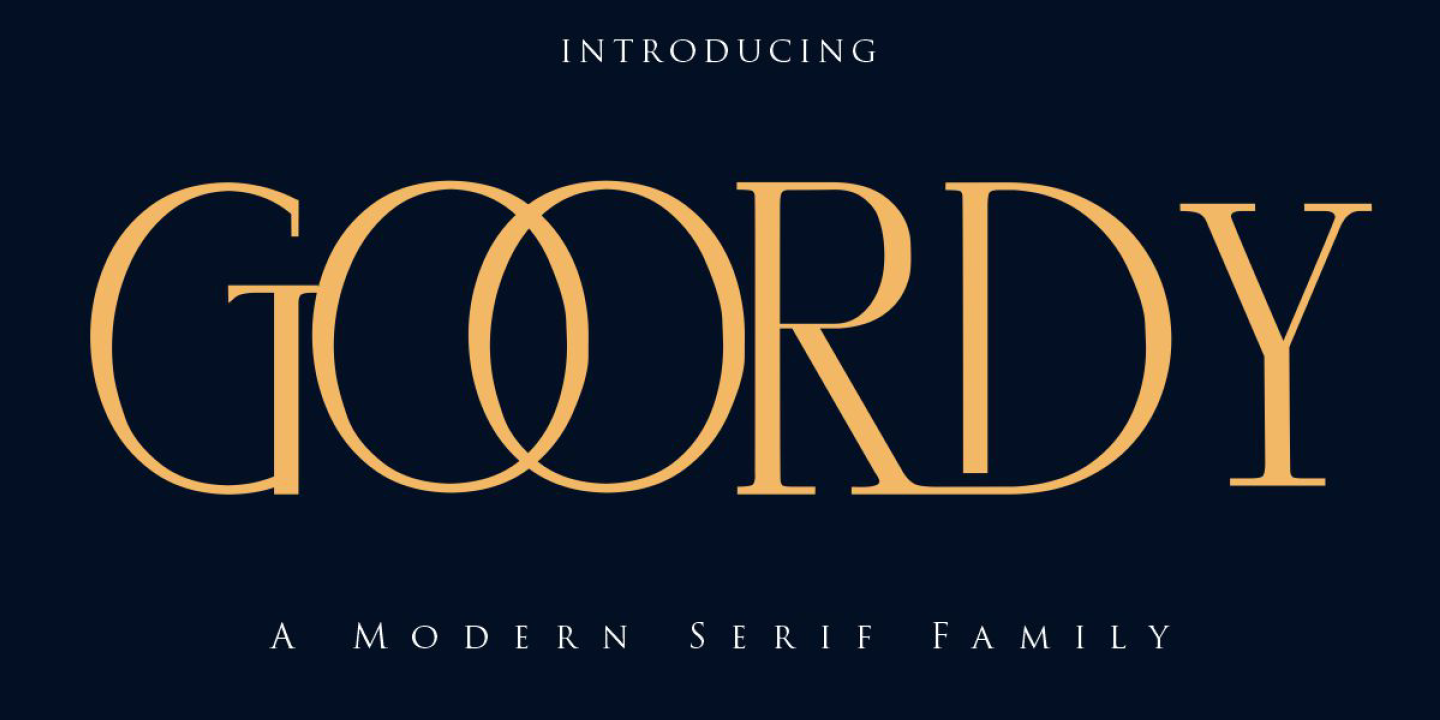
Goordy Font is perfect for playful children's branding, fun educational materials, quirky entertainment venues, whimsical toy packaging, cheerful family restaurants, amusing social media graphics, lighthearted party invitations, creative children's books, jovial gaming interfaces, and delightful family-friendly advertising.
What makes Goordy Font exciting is its quirky charm that perfectly captures the playful spirit and innocent humor found in childhood wonder and family entertainment experiences. This typeface features distinctive letterforms with whimsical proportions and fun-loving details that evoke the spontaneous joy and creative imagination of children at play. The font's playful personality and fun authenticity make it ideal for family entertainment brands seeking to convey joy, creativity, and the delightful humor that comes from genuine childhood happiness and playful family experiences.
Goordy Font family includes playful weight variations and whimsical alternatives that enhance its fun appeal while providing design flexibility for children's and entertainment applications. The font features amusing ligatures, fun-themed ornaments, and quirky character variations that create authentic playful atmosphere for family entertainment and children's branding.
Children's entertainment companies and family brands consistently choose Goordy Font Free Download for projects requiring authentic playful appeal and family-friendly credibility. The font's quirky character excels in applications targeting children, families, and fun-loving audiences who appreciate genuine humor and playful entertainment. Whether you're designing for children's products, family entertainment venues, or educational materials, this delightful typeface delivers the playful authenticity and whimsical charm that resonates with audiences seeking genuine family fun and the innocent joy that defines childhood wonder and family entertainment excellence.